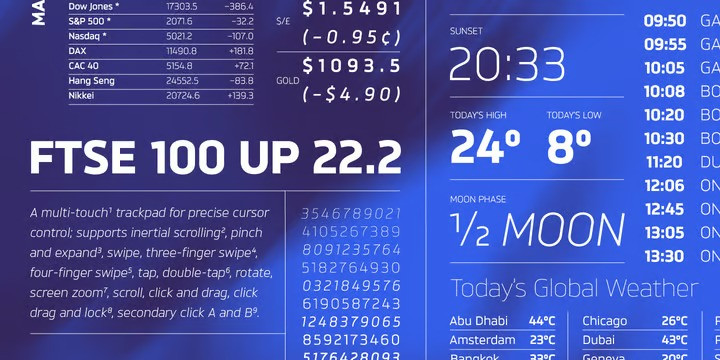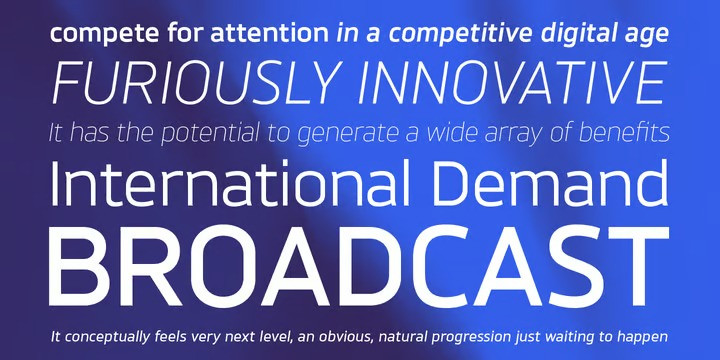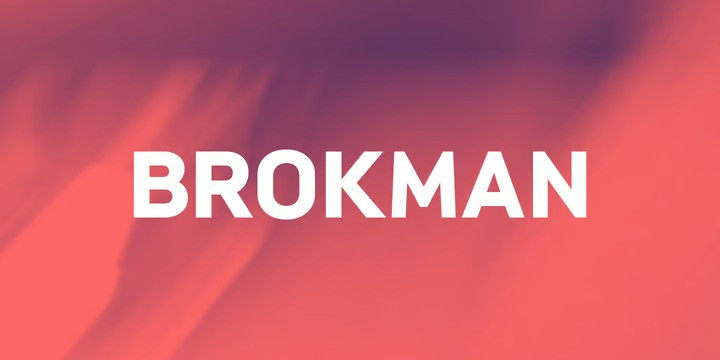
Brokman Font
Brokman Sans Serif Font Family is a contemporary sans serif designed to bring clarity and originality to brand related projects. The open apertures and large x-height help provide a fresh aesthetic with an easy, fluid texture across design layouts. While it’s squarish proportions are balanced with subtle rounding achieving a carefully modulated and textured feel in longer text scenarios. Its weight-range allows great flexibility, making the typefaces suitable for a variety of media applications including apps, brand identities, broadcast, gaming and the web. Details include 430 characters, seven weights each with true italics, manually edited kerning and Opentype features.